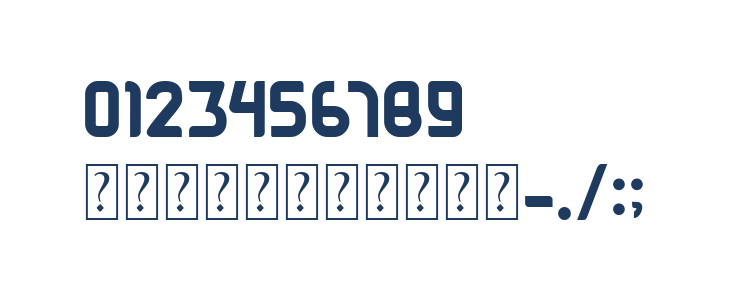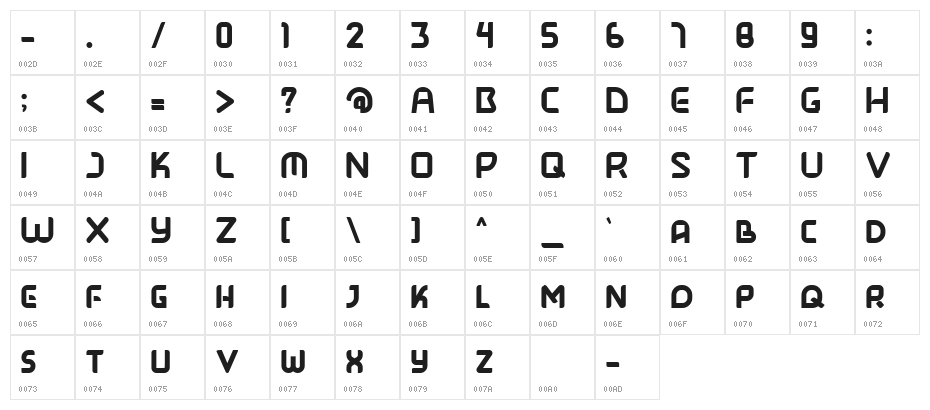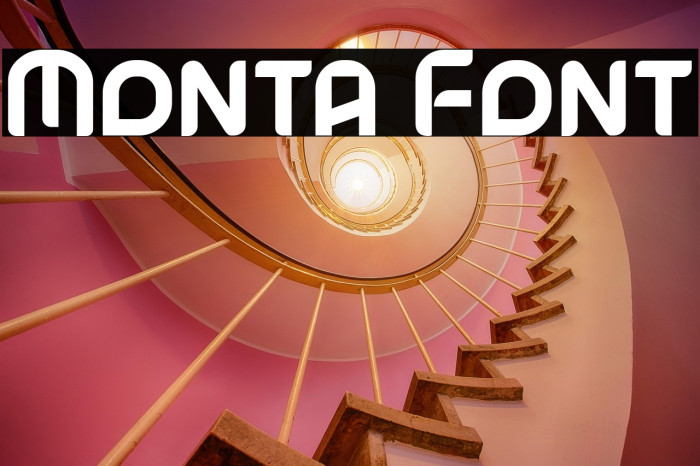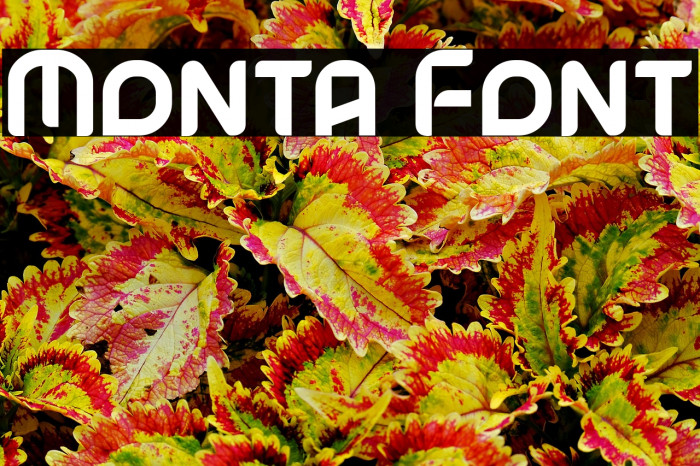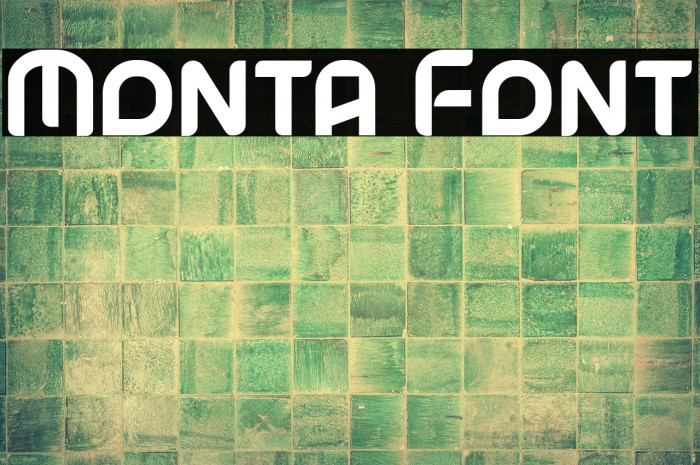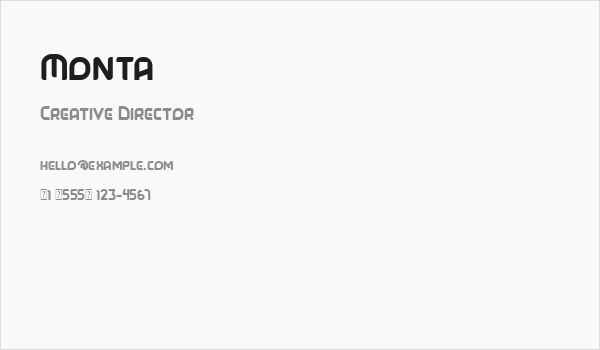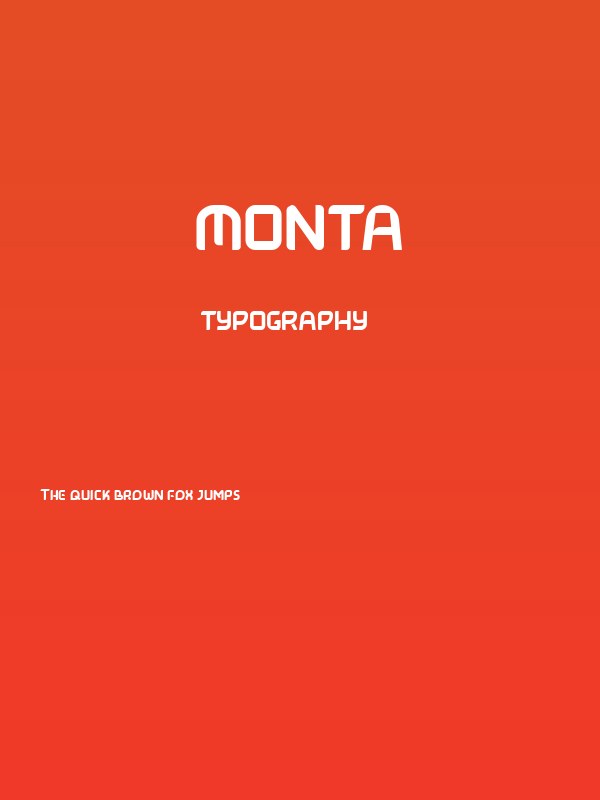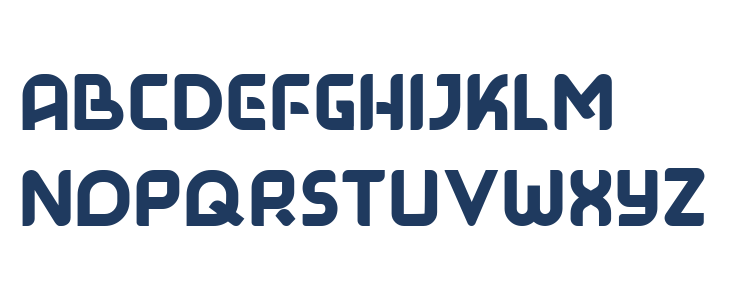
Monta Font
Monta Description
This font features a bold, geometric design with a modern and futuristic aesthetic. The characters are constructed with a consistent stroke width, giving it a strong and uniform appearance. The rounded edges and smooth curves provide a friendly and approachable feel, while the angular cuts add a touch of sophistication. The uppercase and lowercase letters maintain a cohesive style, with the numerals and special characters complementing the overall look. This font is versatile and can be used in various design contexts, from digital interfaces to print media.
| Use Case | Headlines, Logos, Digital Interfaces |
| Proposed Projects | Ideal for technology branding, digital interfaces, modern advertising, and futuristic-themed projects. |